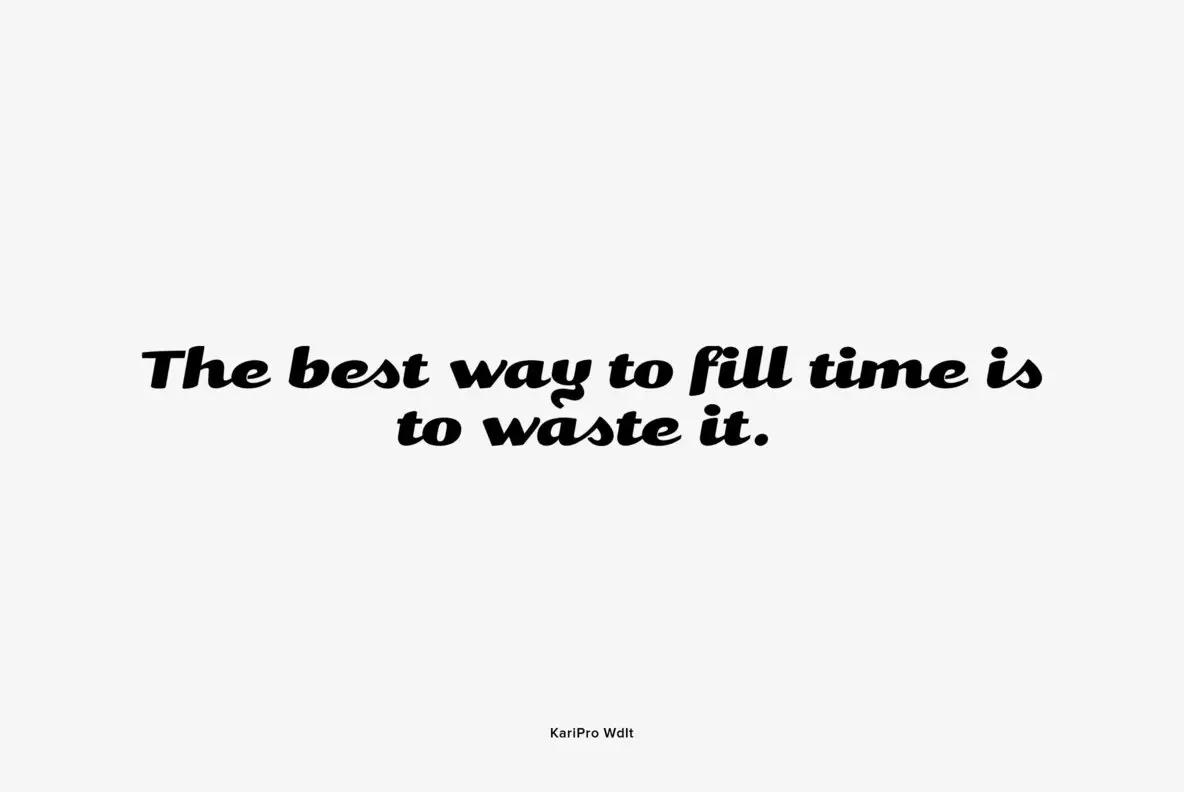
Kari Pro Font Free - View sample text, character map, user rating and review for kari pro italic. I have always enjoyed this typeface and have had fond memories from. Karipro regular is the perfect font for all your fun designs. The karipro regular font was. Web now with almost 100 new ligatures, alternate and swash characters, kari pro has a great deal more personality.
Kari Pro Font Free - Web now with almost 100 new ligatures, alternate and swash characters, kari pro has a great deal more personality and. The karipro regular font was. Web download kari pro italic for free. A typeface with 6 styles, available from adobe fonts for sync and web use. Karipro regular is the perfect font for all your fun designs.
Kari Pro Font Free - Web now with almost 100 new ligatures, alternate and swash characters, kari pro has a great deal more personality and. View sample text, character map, user rating and review for kari pro italic. Web download kari pro for free, view sample text, rating and more on fontsgeek.com. Web download kari pro regulartruetype font. The karipro regular font was.
Kari Pro Font Free - Web download kari pro for free, view sample text, rating and more on fontsgeek.com. Web explore kari available at adobe fonts. View sample text, character map, user rating and review for kari pro italic. Web now with almost 100 new ligatures, alternate and swash characters, kari pro has a great deal more personality and. A typeface with 6 styles, available.
Kari Pro Font Free - Web now with almost 100 new ligatures, alternate and swash characters, kari pro has a great deal more personality and. I have always enjoyed this typeface and have had fond memories from. Web download kari pro regular for free. Web download kari pro italic for free. View sample text, character map, user rating and review for kari pro italic.
Kari Pro Font Free - A typeface with 6 styles, available from adobe fonts for sync and web use. View sample text, character map, user rating and review for kari pro italic. Web download kari pro regular for free. I have always enjoyed this typeface and have had fond memories from. Karipro regular is the perfect font for all your fun designs.
Kari Pro Font Free - View sample text, character map, user rating and review for kari pro italic. The karipro regular font was. Web download kari pro regular for free. Web download kari pro italic for free. A typeface with 6 styles, available from adobe fonts for sync and web use.
Kari Pro Font Free - Web now with almost 100 new ligatures, alternate and swash characters, kari pro has a great deal more personality and. The karipro regular font was. Web explore kari available at adobe fonts. Web download kari pro for free, view sample text, rating and more on fontsgeek.com. Web download kari pro regulartruetype font.